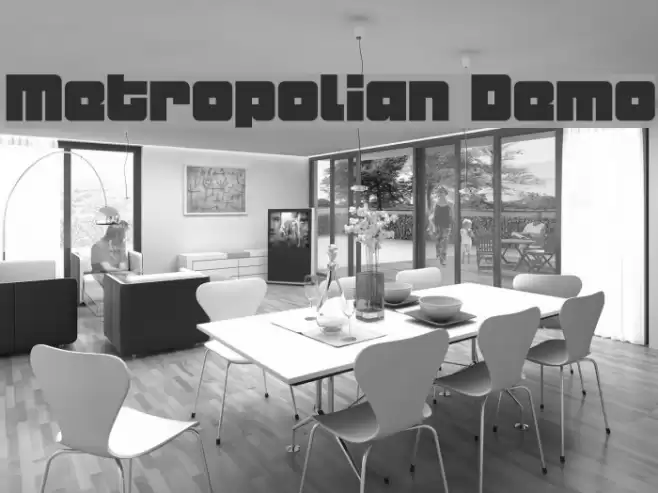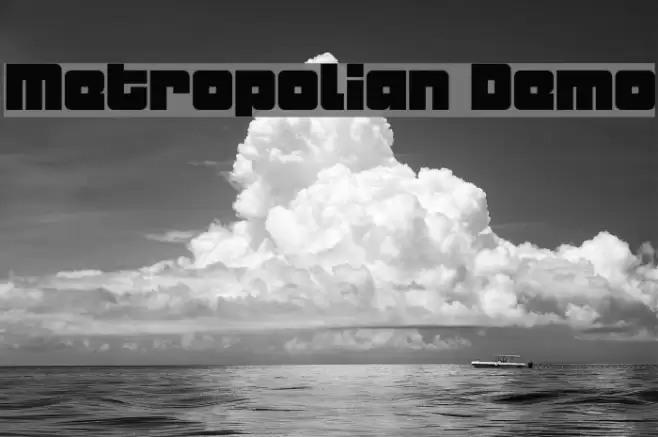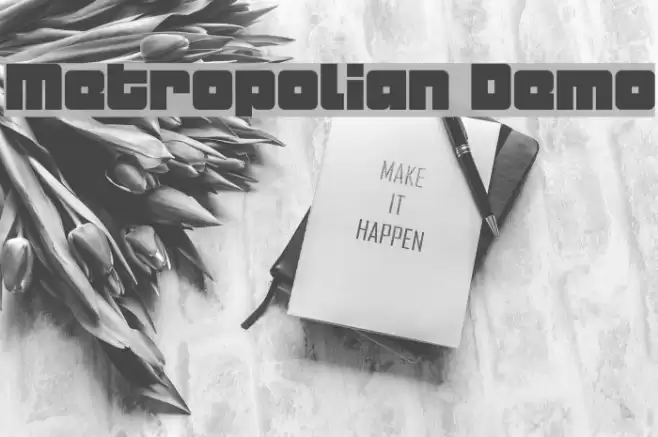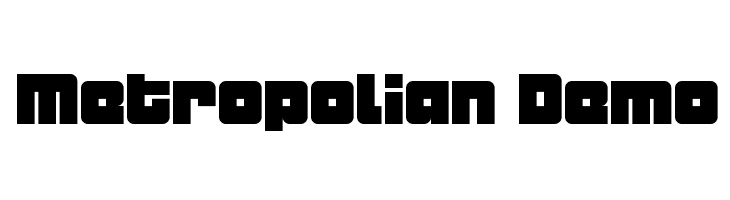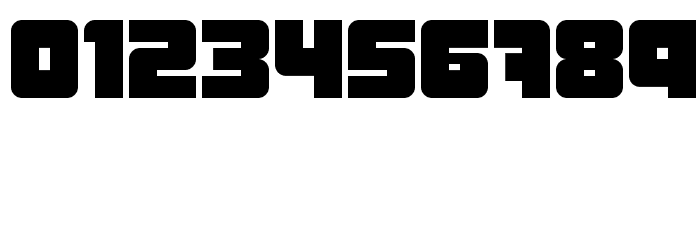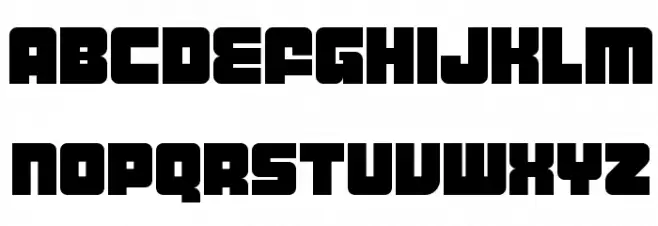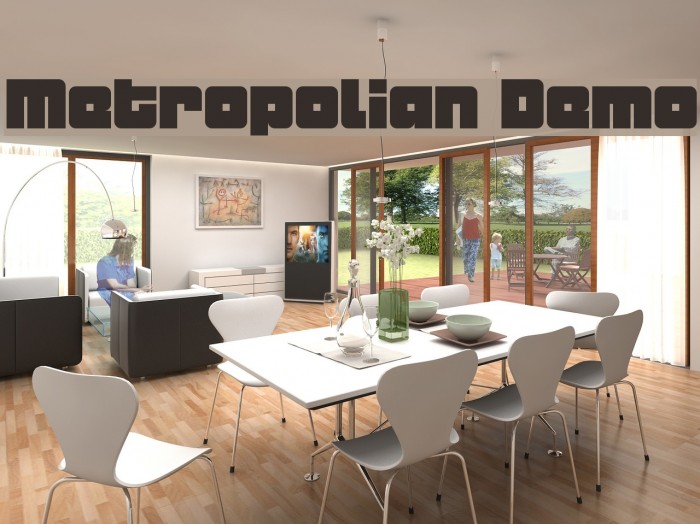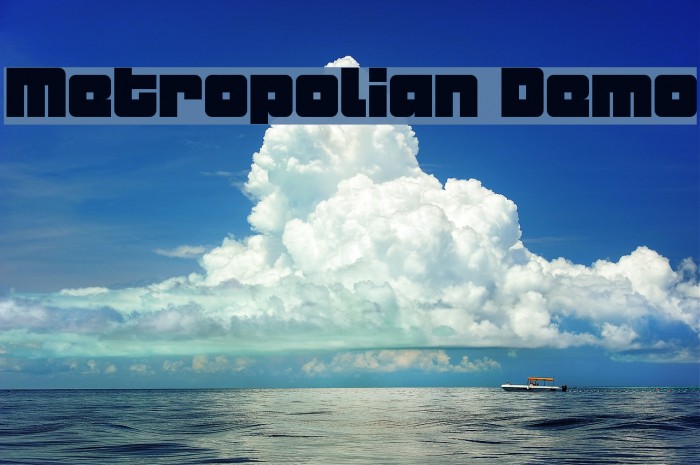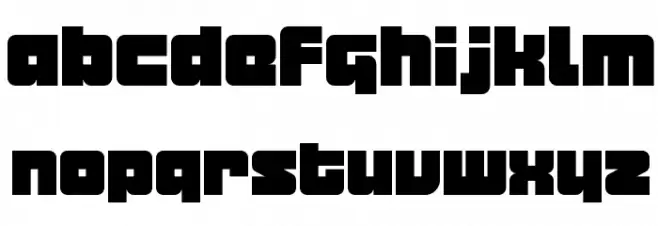
Metropolian Demo Font
Metropolian Demo Description
This font features a bold and geometric style with a strong presence. The characters are blocky and robust, with a uniform thickness throughout, giving it a modern and industrial feel. The uppercase and lowercase letters maintain a consistent height, contributing to its cohesive appearance. The numbers and special characters are designed to match the boldness of the alphabet, ensuring a harmonious look across all elements. The font's design is straightforward, with minimal curves and a focus on angular shapes, making it ideal for impactful and attention-grabbing text.
A bold, geometric font with a modern, industrial aesthetic from Uncategorized fonts.
- Proposed Projects: Ideal for branding, posters, headlines, and any project requiring a strong visual impact.